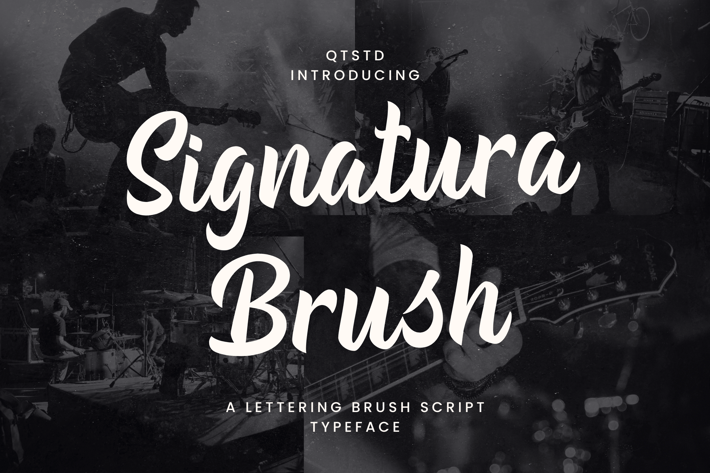
Signatura Brush - Lettering Brush Script Typeface
Signatura Brush - A Lettering Brush Script Typeface
Signatura Brush is not just a font; it's a stroke of artistic brilliance that brings life and personality to your designs. This lettering brush script typeface is carefully crafted to offer a perfect blend of elegance and spontaneity.
Whether you're working on invitations, branding, or any project that demands a touch of hand-crafted finesse, Signatura Brush delivers with its flowing strokes and authentic, natural feel.
With its versatile charm, Signatura Brush adds a distinct character to your creations. Each letter is a masterpiece, capturing the essence of free-flowing creativity. The typeface seamlessly combines readability with a dynamic edge, making it suitable for various design applications.
Elevate your projects with the expressive and captivating vibe of Signatura Brush, where every stroke tells a story.